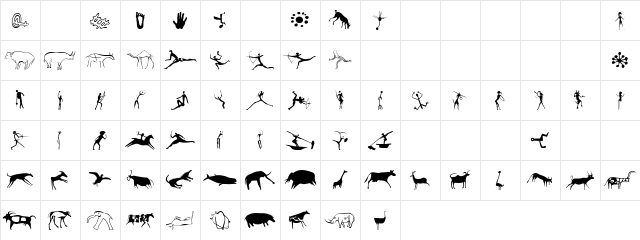
P22Petroglyphs African
| Style | African |
Design Context for P22Petroglyphs Typeface
P22Petroglyphs is a composed and adaptable typeface that performs quietly and consistently across a wide range of design contexts.